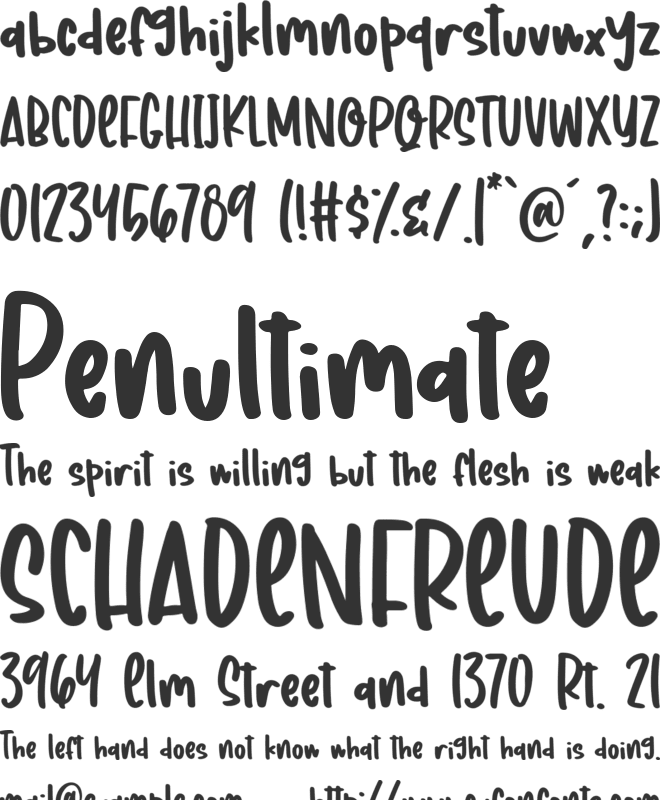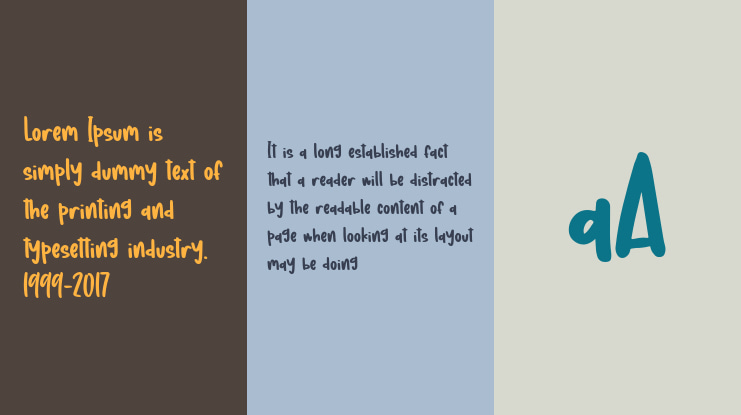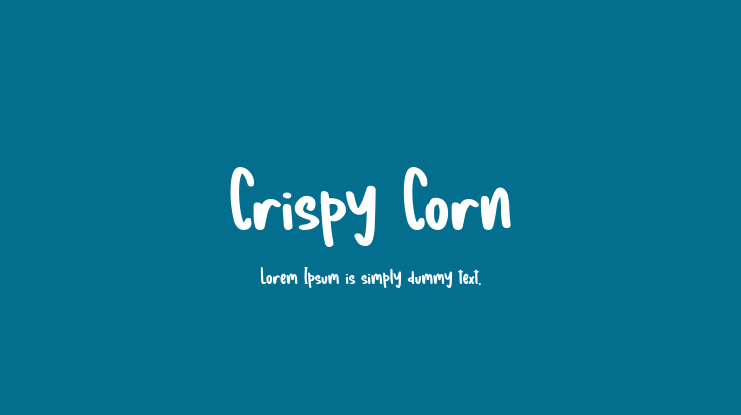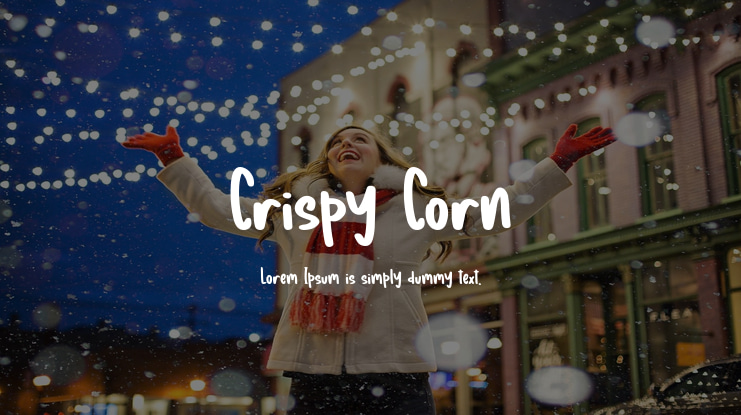
Crispy Corn Font
Dimas Prasetyo
This enchanting font will turn any creative idea into a true standout. Perfect fit for all of your logos, branding, social media, etc. Get creative with its unique playfulness, and use it to brighten up any crafting project!
Crispy Corn font preview